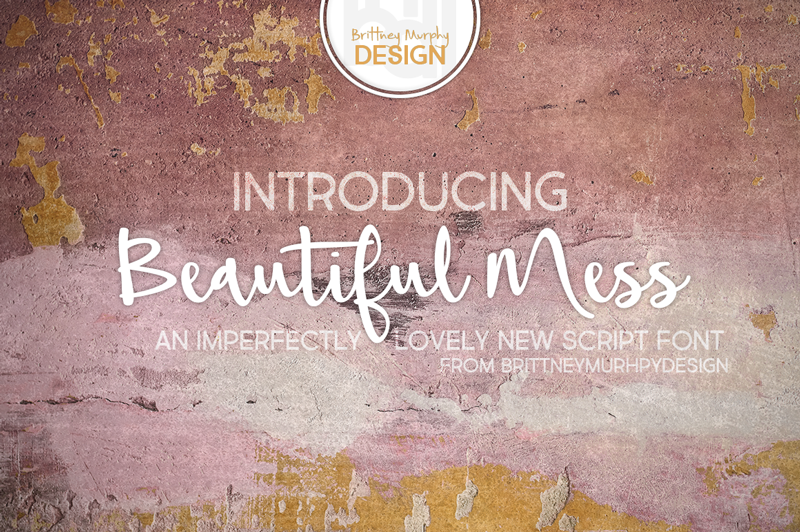
Font name: | Beautiful Mess |
Author: | Brittney Murphy Design |
Note by Brittney Murphy Design | |
Beautiful Mess is a lovely, if slightly messy, hand-drawn script font. Comes with Latin and extended Latin characters, 357 in all. Free for personal use. For commercial use, please purchase a license: https://brittneymurphydesign.com/downloads/beautiful-mess/ |